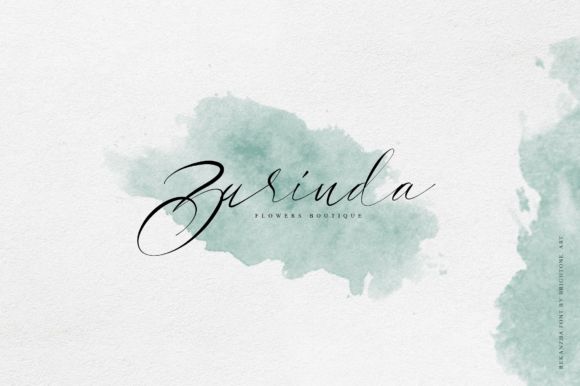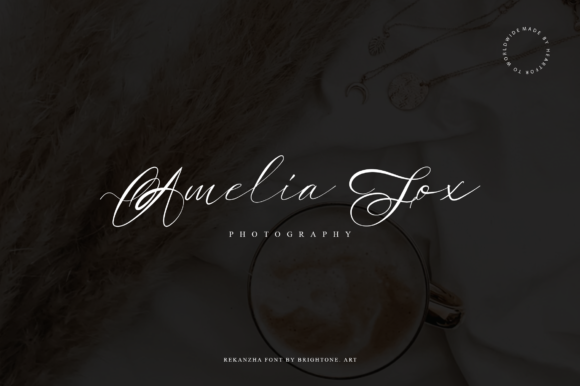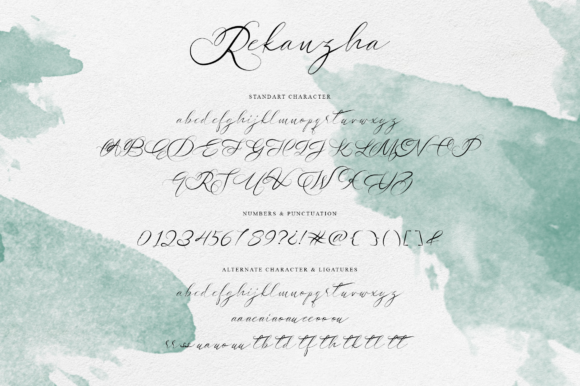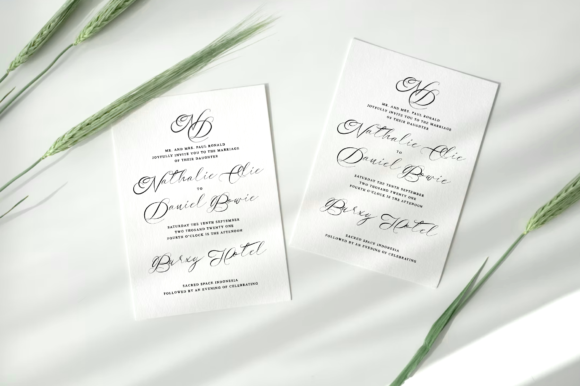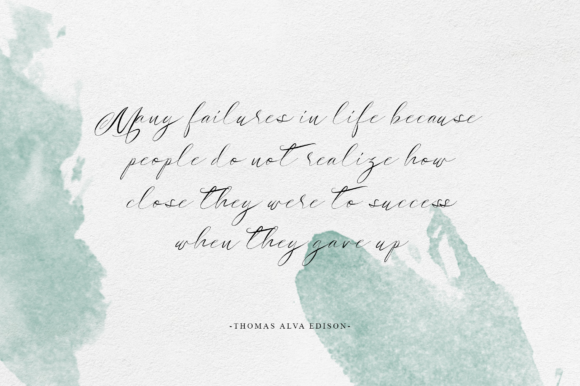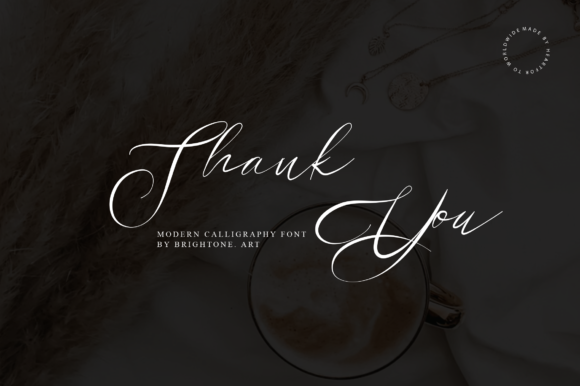
Rakanzha Script Font
About Rakanzha Script Font
Rekanzha is a natural and calligraphic script font. It is a great choice for branding your brand, t-shirt design, lettering design, logo, or looks great when combined with your product for an Instagram post, Instagram story, or label for your product.